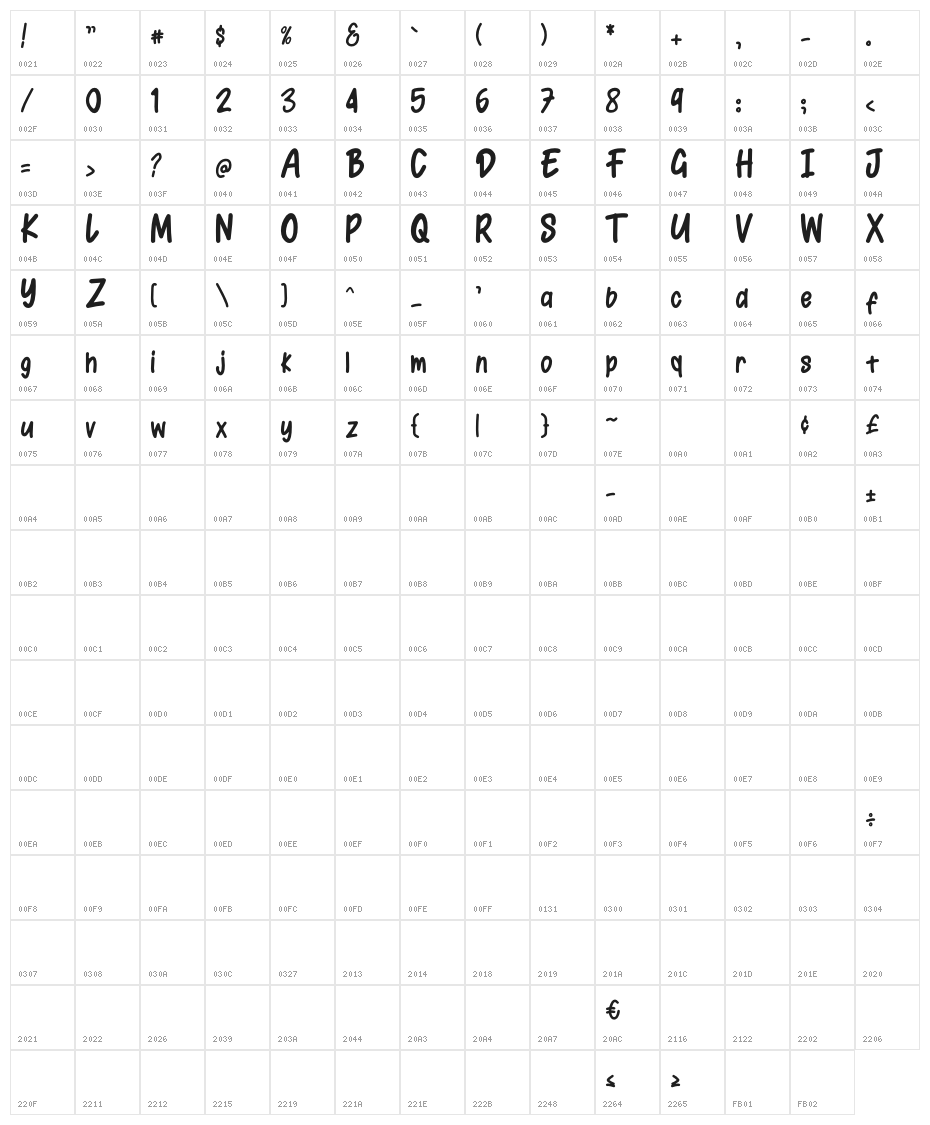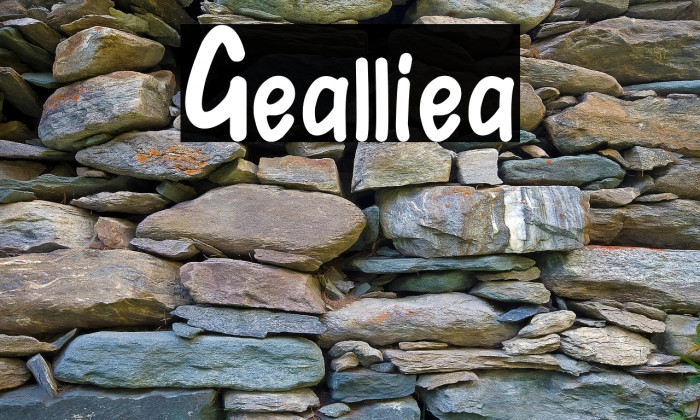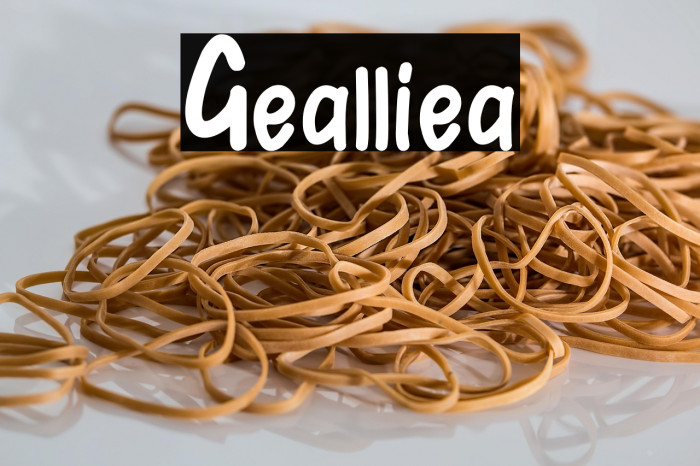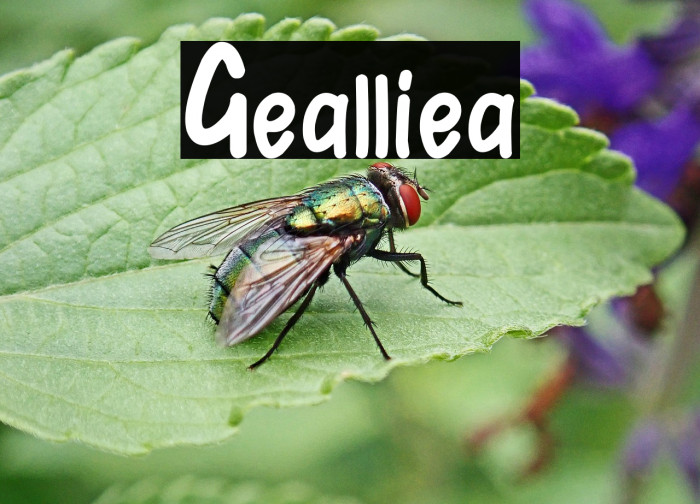
Gealliea Font
| Общий стиль | Casual, Playful |
| Область применения | Headlines, Informal text, Branding |
| Рекомендуемые проекты | Ideal for greeting cards, children's books, playful branding, and social media graphics. |